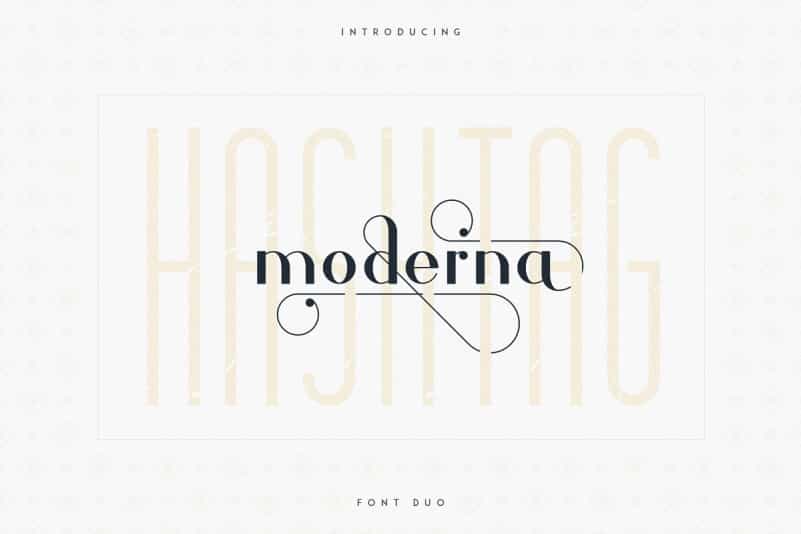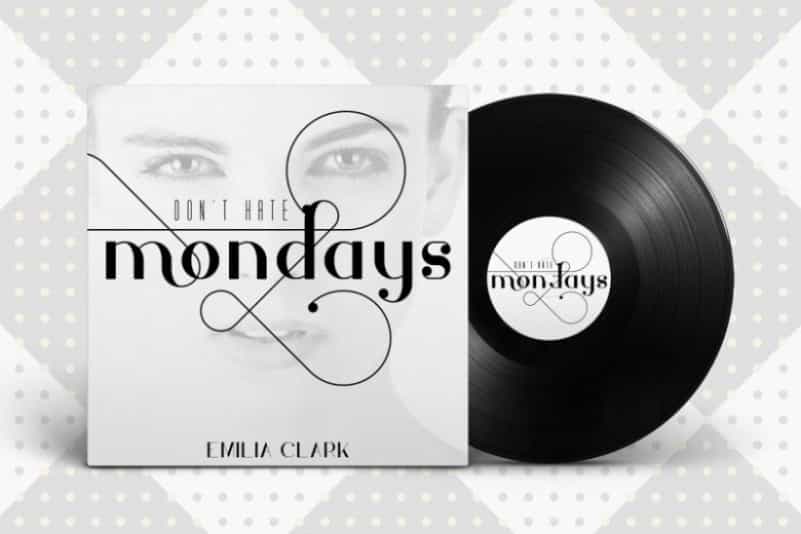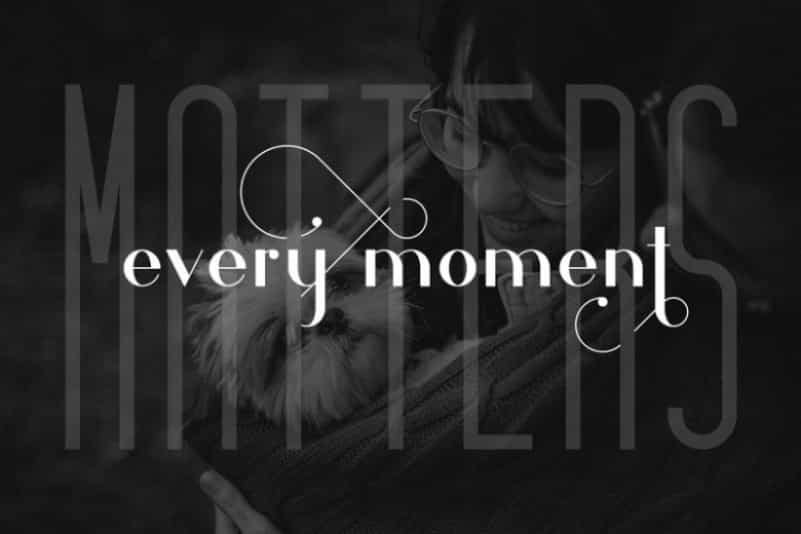
It is daring, audacious and simply fun – it’s Hashtag Moderna Font Duo! The hashtag “Moderna” is a beautiful, clean font duo that consists of 4 styles in total with many options and ligatures as well as patterns and support for multiple languages. It is a very flexible font that can be used in both large and small sizes.